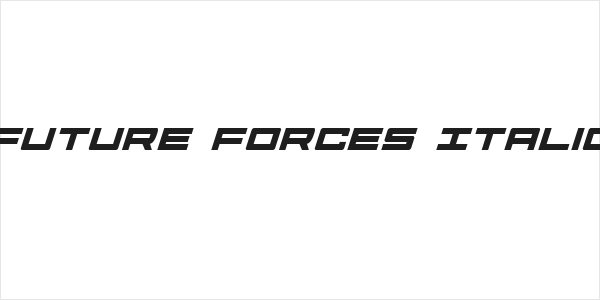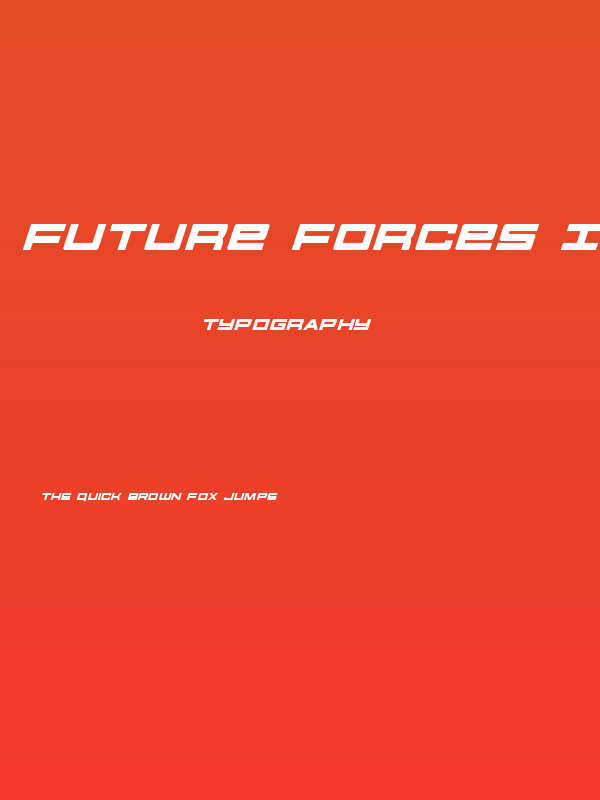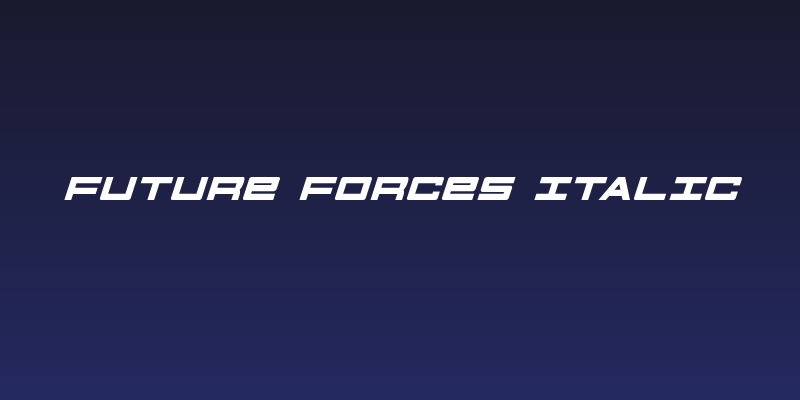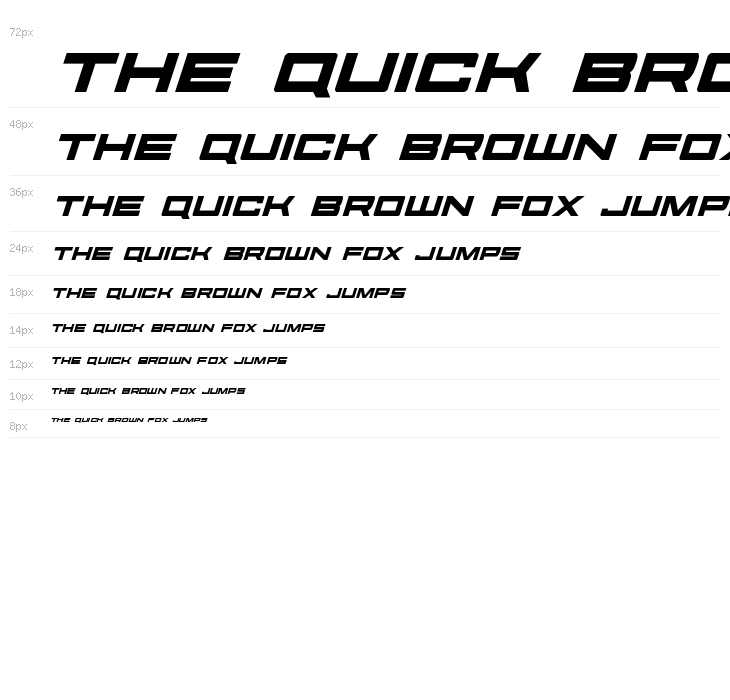
Future Forces Italic Font
Future Forces Italic Description
This font features a futuristic and dynamic style with a strong italic slant, giving it a sense of motion and speed. The characters are bold and angular, with sharp edges and a geometric structure that conveys a modern, tech-inspired aesthetic. The uppercase and lowercase letters maintain a consistent design, emphasizing uniformity and precision. The numerals and special characters are crafted to match the overall theme, ensuring a cohesive look across all text elements. This font is ideal for projects that require a cutting-edge, contemporary feel.
| Proposed Projects | Ideal for technology branding, sci-fi movie posters, video game titles, and modern advertising campaigns. |